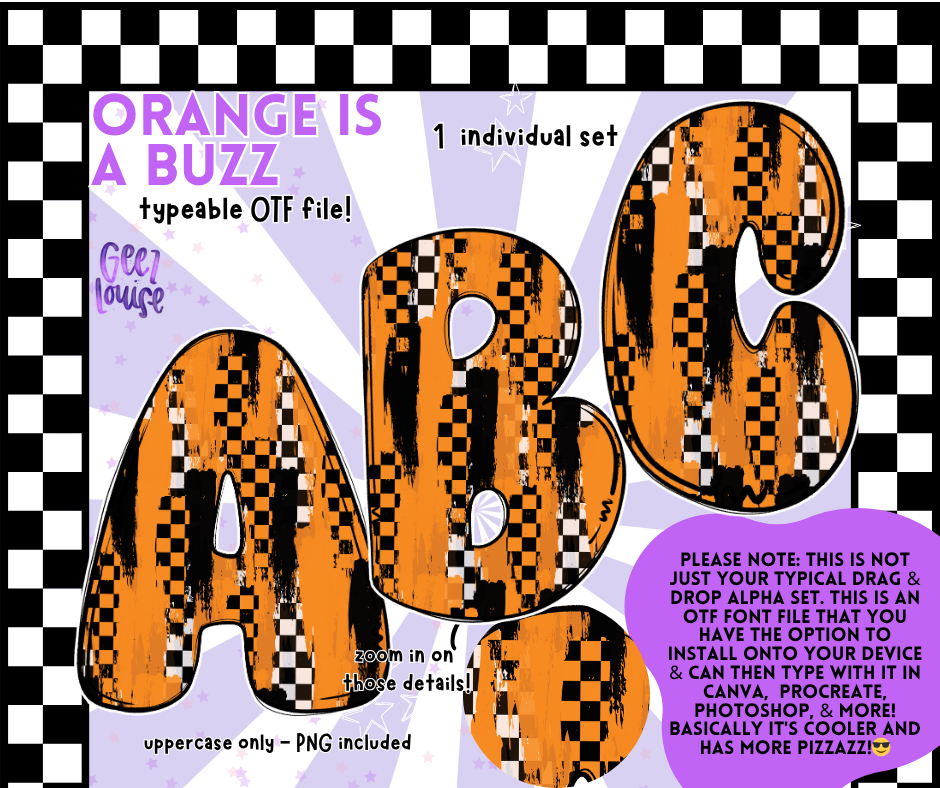
Orange Is a Buzz – Halloween Checker OTF Font & PNG Set
🧡 Give your designs that Halloween honey glow with Orange Is a Buzz — a bold orange-and-black checker OTF font + PNG set that’s buzzing with attitude. Perfect for fall, spooky season, racing-inspired designs, or anything that needs that retro-grunge kick.
Perfect for Halloween tees, bold typography posters, seasonal party invites, and digital art projects.